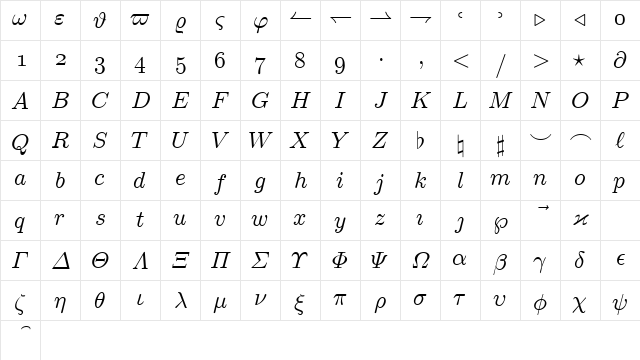
cmmi12 Regular
cmmi12 takes a measured approach to typography — its balanced proportions and neutral character make it a reliable workhorse for both digital and print work.